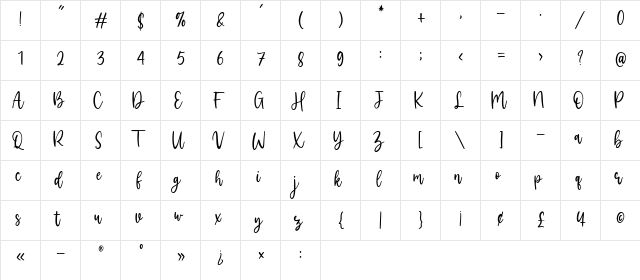
Silverglow Regular
Design Context for Silverglow Typeface
Silverglow is a composed and adaptable typeface that performs quietly and consistently across a wide range of design contexts.